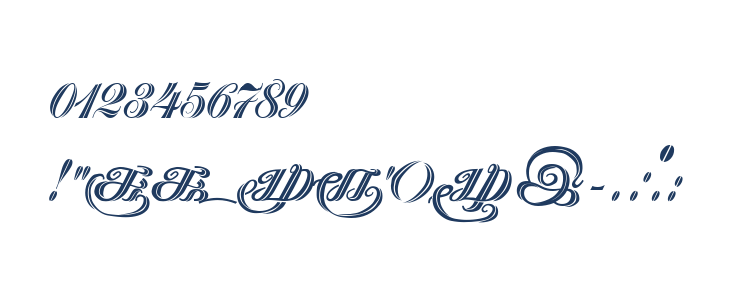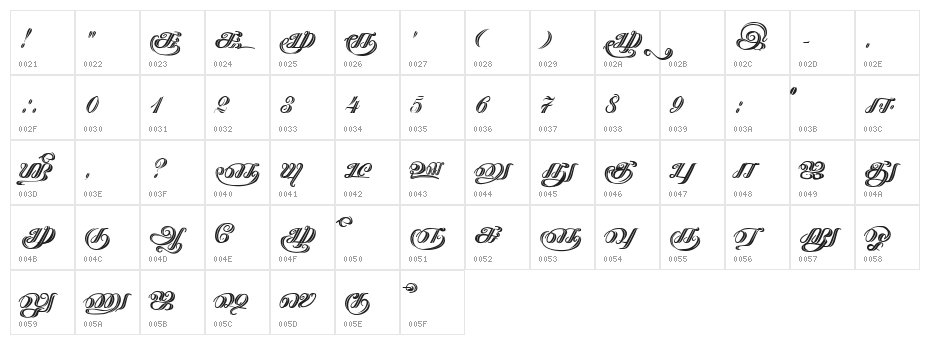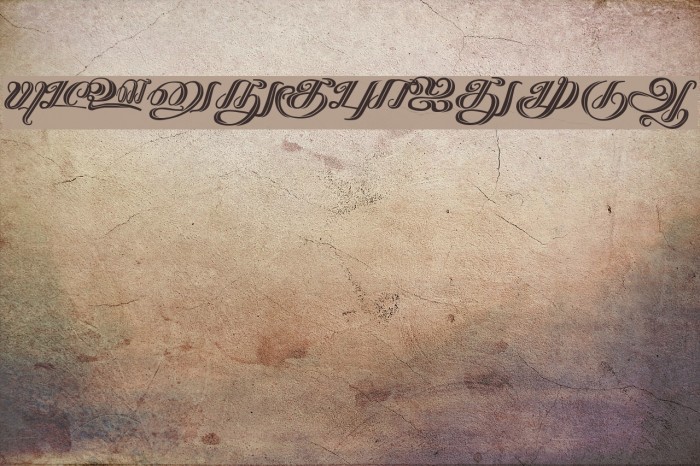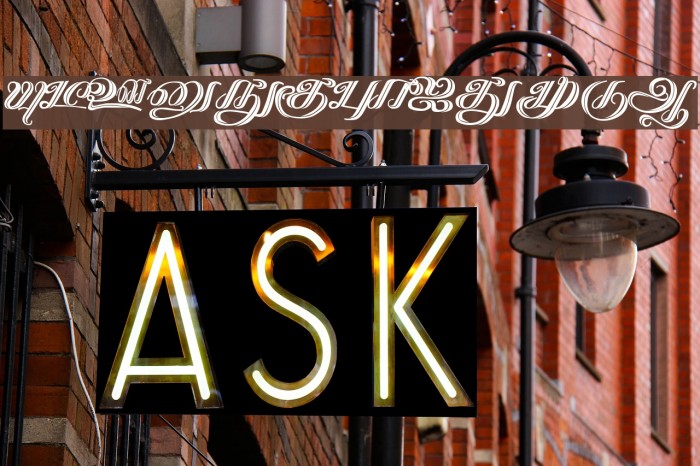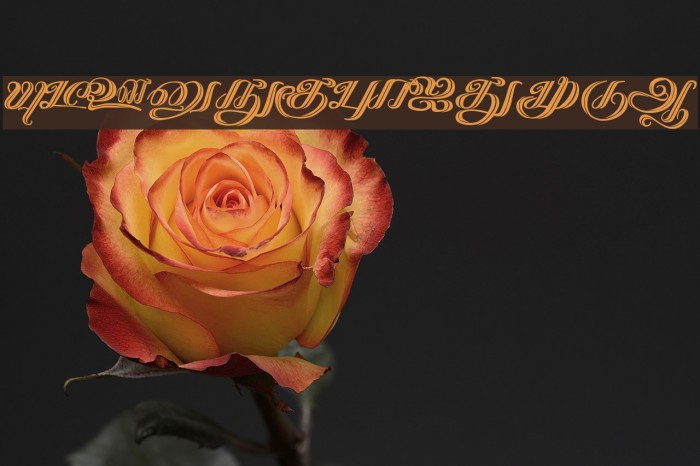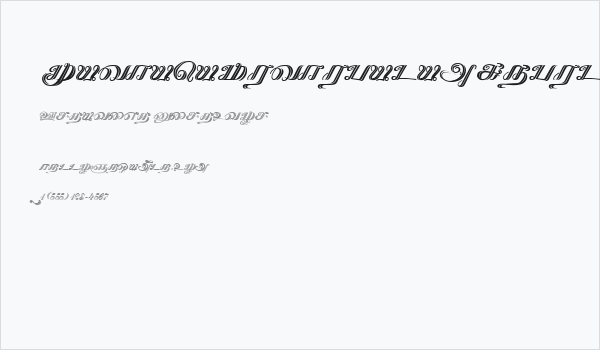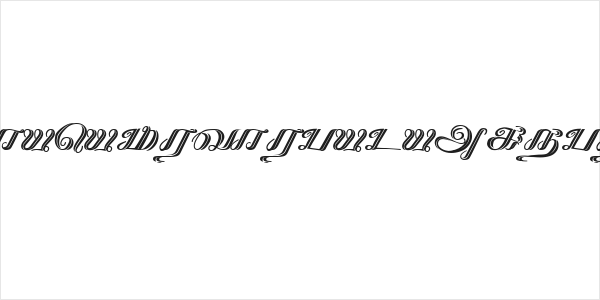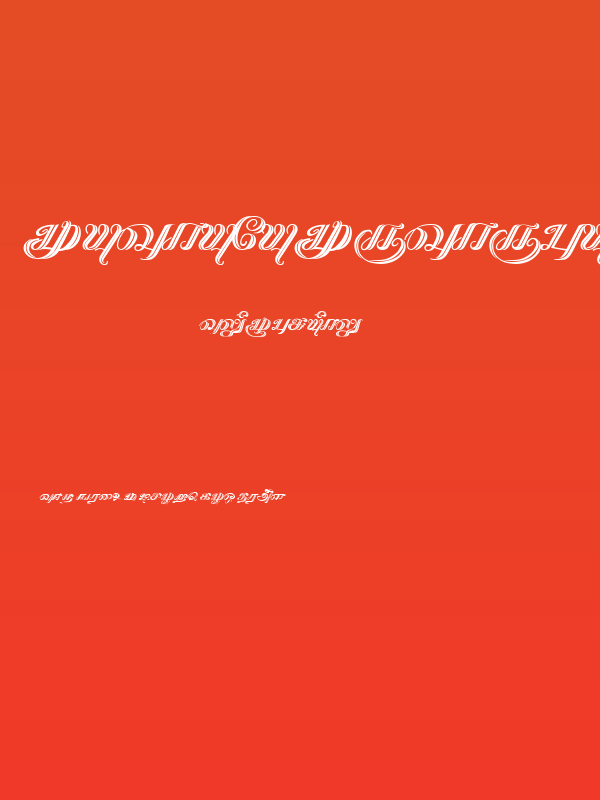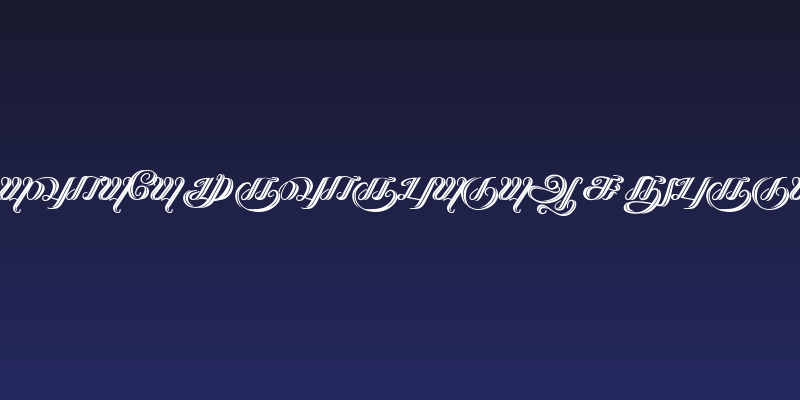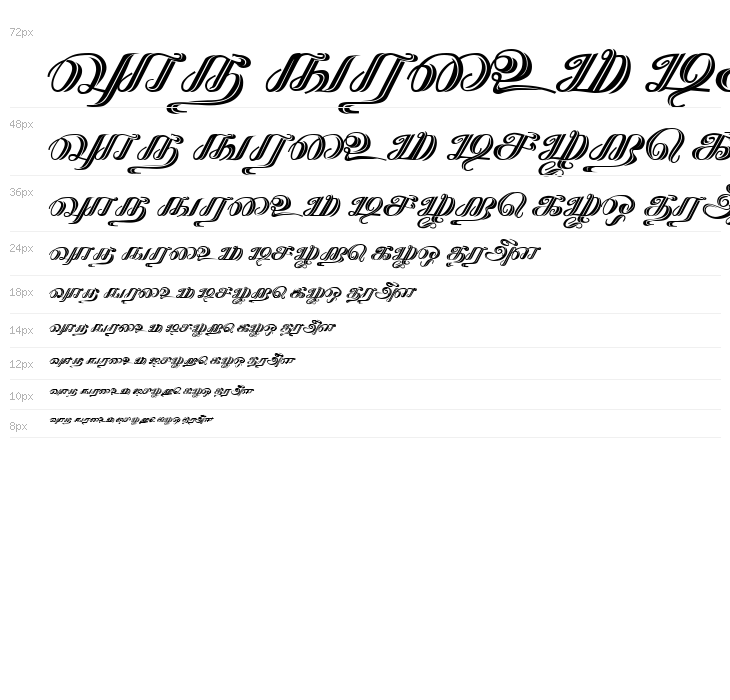
Kathanakuthugalam Regular Font
Kathanakuthugalam Regular Description
This font features an ornate and decorative style with intricate detailing and flourishes. The characters are highly stylized, with elaborate loops and swirls that give it a unique and artistic appearance. The font maintains a consistent flow throughout, with each letter seamlessly connecting to the next, creating a sense of elegance and sophistication. The numerals and special characters are equally embellished, maintaining the overall aesthetic. This font is particularly suited for projects that require a touch of elegance and creativity.
| Proposed Projects | Ideal for wedding invitations, greeting cards, luxury branding, and decorative headings. |